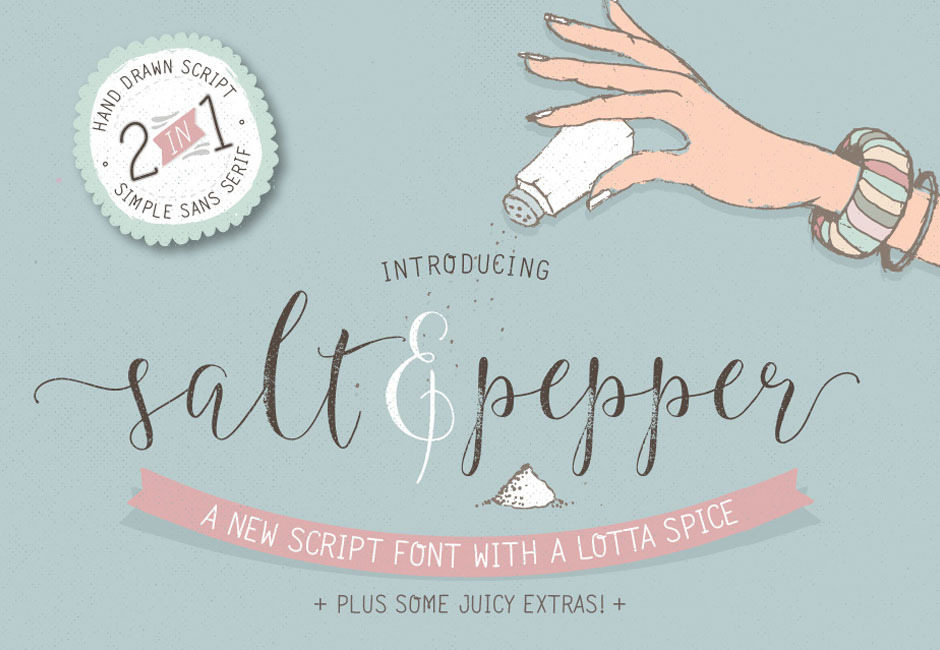
Salt & Pepper: Whimsical Font Family
Salt & Pepper: A Whimsical New Font Family From Lisa Glanz
We’ve teamed up with one of our favourite designers, Lisa Glanz to bring you an incredible new font family called Salt & Pepper!
This new font duo will take the guess-work out of font pairing, and have you whipping-up fabulous designs in minutes!
This lovely smooth script also comes with a unique gritty version, giving you more versatility.
Included with the script are some handy ornaments, stylistic alternatives and decorative swashes – a recipe for design success. Not to mention some juicy extras, you’ll receive over 60 graphic elements to kick-start your next project.
“My spicy font duo, Salt & Pepper is jammed full of authentic hand-drawn flavour.” – Lisa Glanz